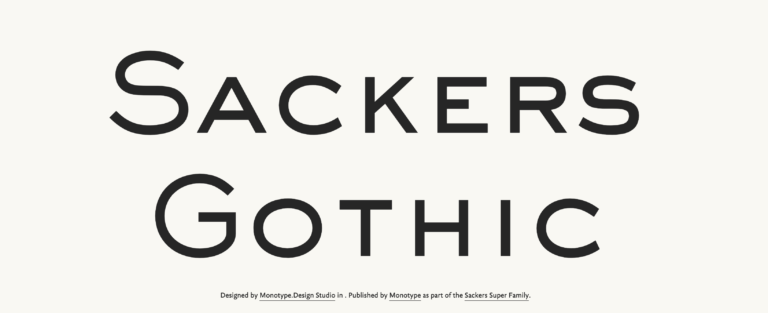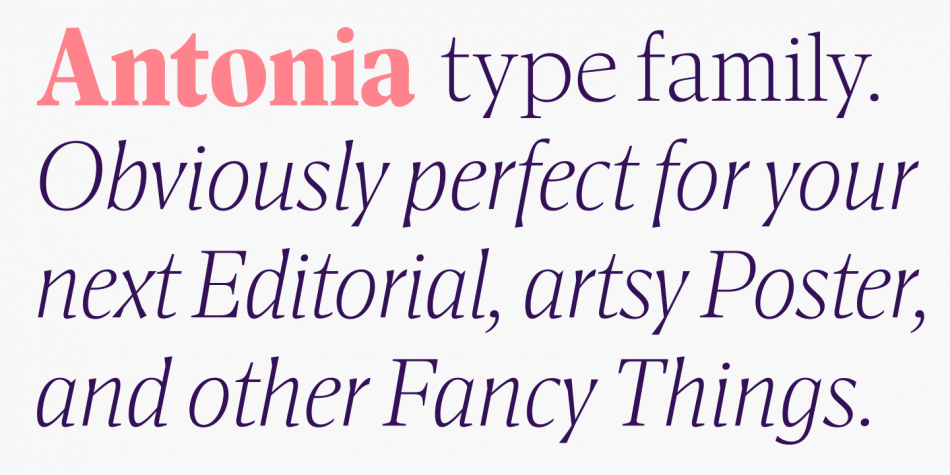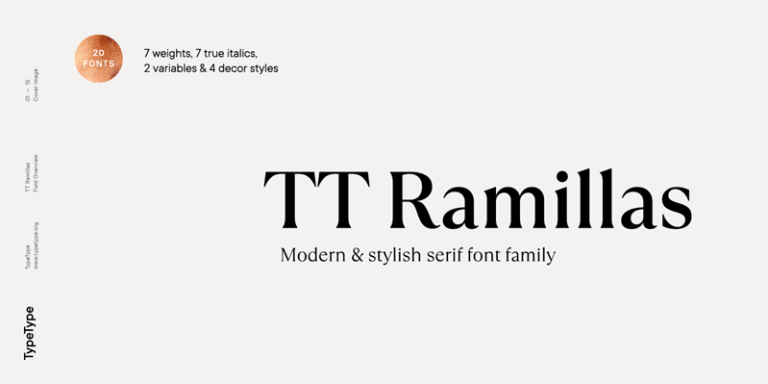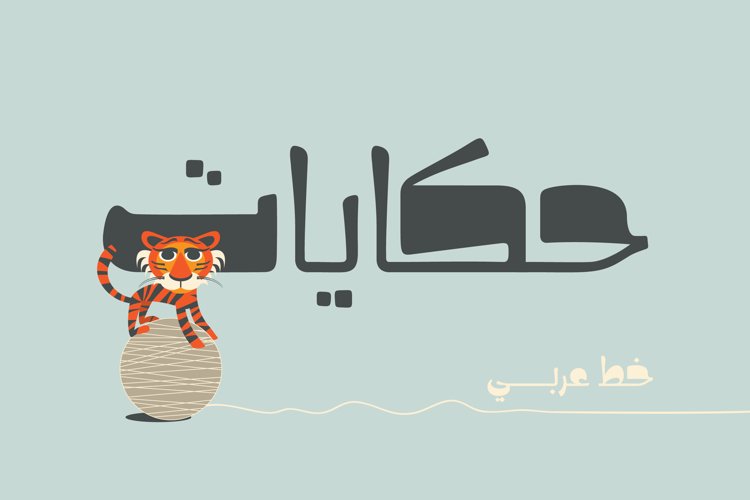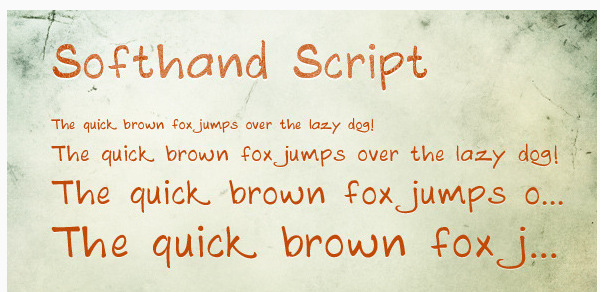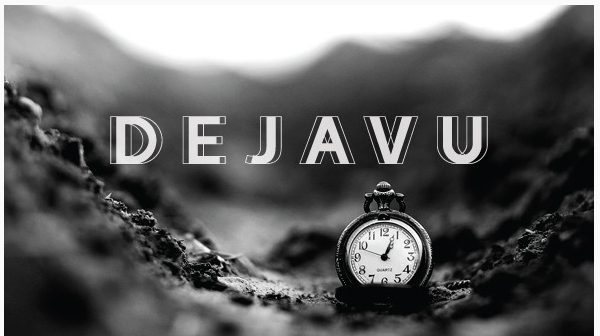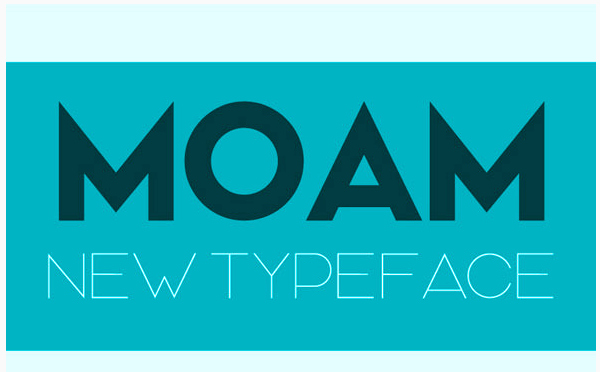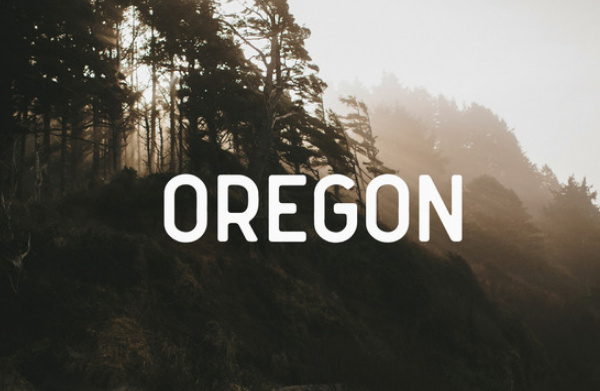
Finding the perfect font for a logo can be a challenging task, as there are countless free and paid fonts available online. You might also lack the skills or time to design a logo from scratch. That’s why we’ve compiled this list!
Here, we’ll introduce the best premium fonts you can use to create stunning logos, as well as other design projects.
01. Sackers Gothic
Sackers Gothic is a display and sans-serif font with three different weights, supporting up to 50 languages. Designed by Typefaith, it has a striking and eye-catching appearance. Not only does it look great in logos, but it’s also suitable for print materials, marketing collateral, websites, and merchandise like T-shirts.
02. Diadema
Diadema is a sans-serif font by Chrisworks Design, blending vintage classicism with modern simplicity and smooth curves. Ideal for minimalist logos and article headlines, it comes in TrueType (TTF) format.
03. Hekayat
If you’re looking for a modern and distinctive Arabic font for your logo, Hekayat could be a great choice. This well-crafted display font balances delicate and bold elements. It also includes two dot settings for greater customization.
04. Softhand Script
Softhand Script by Abogawat is a script font that perfectly combines simplicity with handwritten elegance. It’s beautiful yet highly legible, making it ideal for luxurious yet standout logos. Price: Starting at $9.00
05. Dejavu
Dejavu by Deep Blue is a display font that represents the “transformation of time”—shifting left for the past, solid letters for the present, and shifting right for the future. It comes in three styles and is available in OpenType (OTF) format.
06. Commune
Commune is a modern sans-serif font with thin, smoothly connected lines. It blends vintage charm, contemporary style, playfulness, and classic elegance.
07. MOAM Typeface
MOAM by Nawras Khrais is a simple yet bold sans-serif font perfect for logos. It comes in three styles (regular, engraved, and thin) with numerous glyphs and supports both TTF and OTF formats.
08. Oregon
Oregon by Mark van Leeuwen is a sans-serif font inspired by vintage design but with a modern minimalist twist. Great for logos and article headings.
09. Revelation
Revelation by Sunny Tudu is a stencil-style sans-serif font—simple at first glance but featuring intricate cut-out details when viewed up close.
10. Larken / Typometry Pro
• Larken: Designed by Ellen Luff, it reflects nature, gentleness, and uniqueness, making it ideal for confident-looking logos.
• Typometry Pro: By Emil Kozole, it merges retro and minimalist styles, great for logos and advertising.
11. Antonia
Antonia, designed by Franziska Weitgruber and Michael Hochleitner, is a serif font with 46 variants, 7 weights, and 4 sizes. It blends classic and contemporary aesthetics.
12. TT Ramillas
TT Ramillas by TypeType is perfect for fashion or premium logos. It supports over 180 languages, includes 20 styles, and offers 25 OpenType features per style. Price: Starting at $49